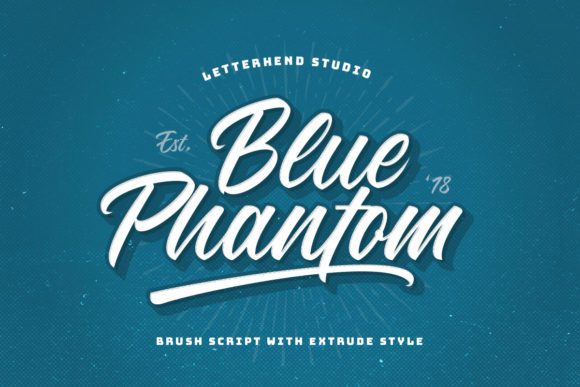
Blue Phantom Script Font
Blue Phantom Script Font is perfect for various design applications including mysterious brand identities, gothic event invitations, supernatural entertainment venues, ethereal beauty product packaging, mystical spa communications, otherworldly fashion labels, spectral art gallery exhibitions, haunting music album covers, mysterious night club signage, and enigmatic lifestyle brand identities. This ethereal typeface excels in projects requiring supernatural elegance and mystical sophistication that captures the alluring beauty of the unknown and the captivating mystery of phantom realms.
What makes Blue Phantom Script Font so exciting is its mesmerizing embodiment of spectral elegance and supernatural sophistication through flowing script letterforms that seem to materialize from otherworldly dimensions. The font features ghostly flowing curves that suggest ethereal movement and phantom grace, mysterious character connections that create supernatural continuity, and distinctive spectral details that evoke the haunting beauty of apparitions and mystical phenomena. Its distinctive phantom character and ethereal appeal make it perfect for brands seeking to communicate mystery, otherworldly elegance, and the captivating allure of supernatural beauty and spectral sophistication.
Blue Phantom Script Font family includes ethereal script weights and supernatural variations that enhance its versatility for different mystical applications. Each style maintains the font's signature phantom character while providing options for various otherworldly design approaches. The family also features supernatural decorative elements, spectral flourishes, and mystical ornaments that can be combined with the letterforms to create cohesive phantom realm design systems.
Whether you're developing mysterious brands, supernatural entertainment, or ethereal communications, Blue Phantom Script Font Free Download provides haunting typography that captivates audiences and celebrates the mesmerizing beauty of supernatural elegance and phantom sophistication. This typeface transforms ordinary communications into mystical experiences that promise otherworldly encounters and spectral beauty. The font's ethereal appeal makes it particularly effective for gothic entertainment venues, mystical beauty brands, and supernatural-themed businesses targeting audiences who appreciate mysterious elegance and phantom sophistication.
Blue Phantom Script Font stands out by delivering authentic supernatural elegance that feels genuinely mystical rather than artificially spooky or superficially gothic. Its carefully crafted spectral proportions and phantom details ensure that designs feel authentically connected to supernatural aesthetics while maintaining sophisticated elegance. From mysterious brand communications to ethereal event materials, this font provides designers with tools to create communications that celebrate supernatural beauty and inspire appreciation for phantom elegance through haunting, spirit-inspired script typography that materializes from beyond the veil.